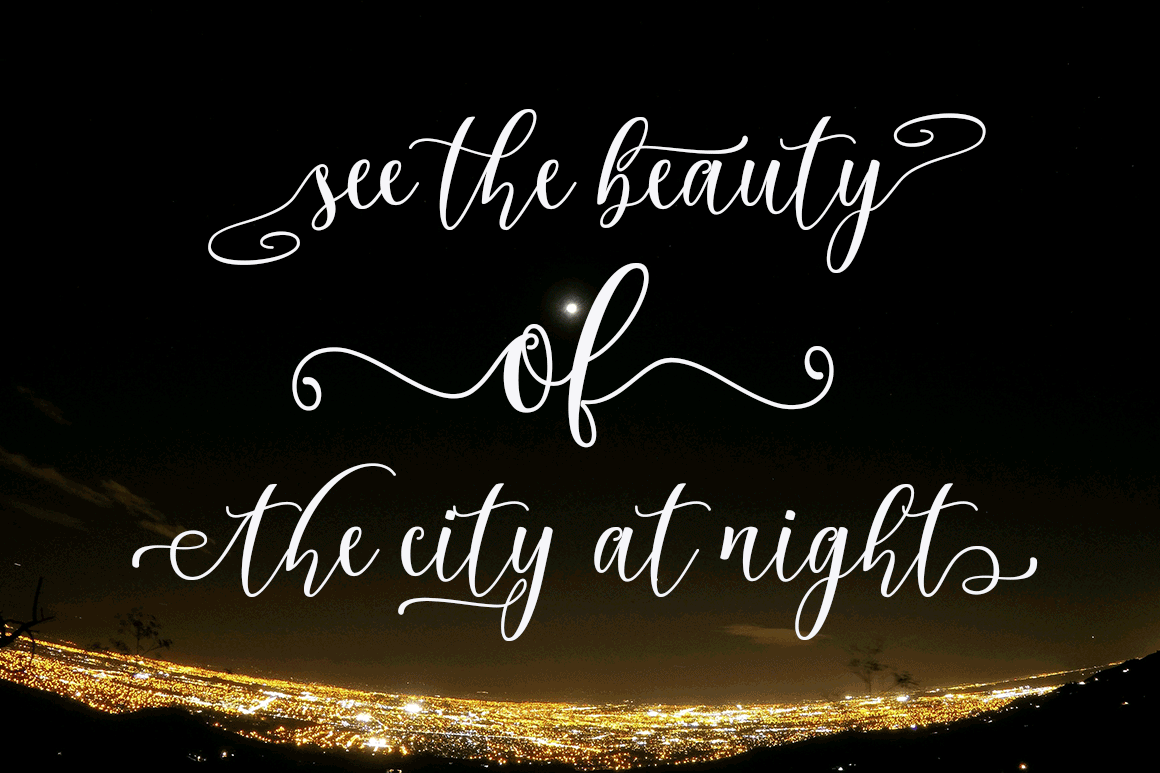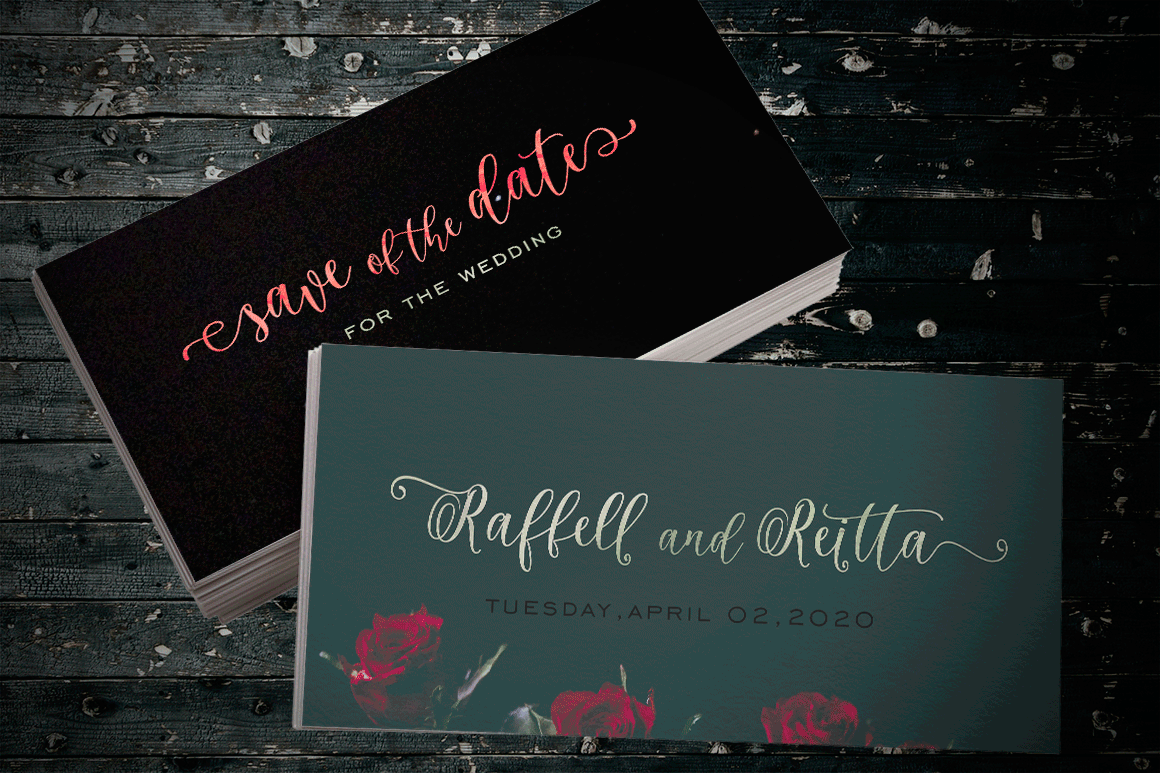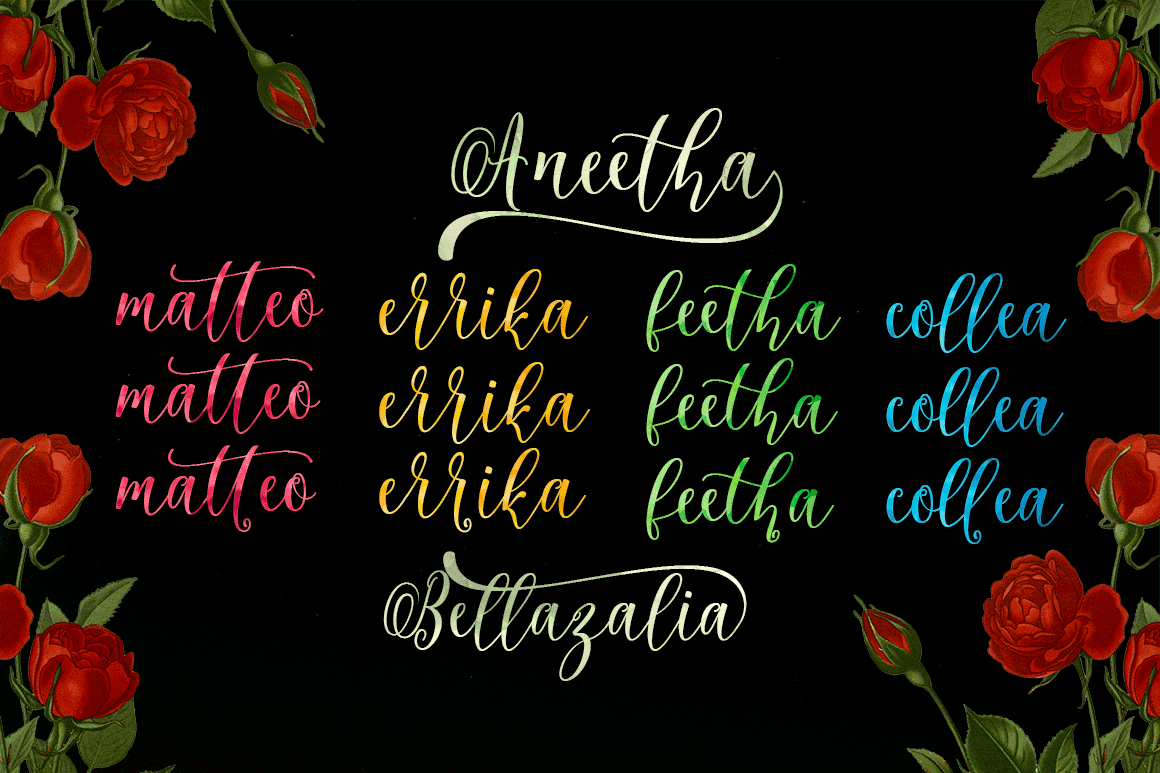
Introduction to Rositha Font
Rositha is a hand-painted font created by Meutuwah.
Why Choose Rositha Font?
Rositha Font offers exceptional quality and versatility, making it a valuable addition to your design toolkit. Whether you’re creating for personal projects or commercial use, Rositha Font delivers professional results.